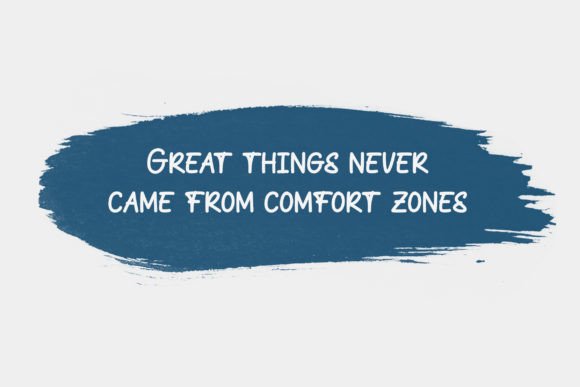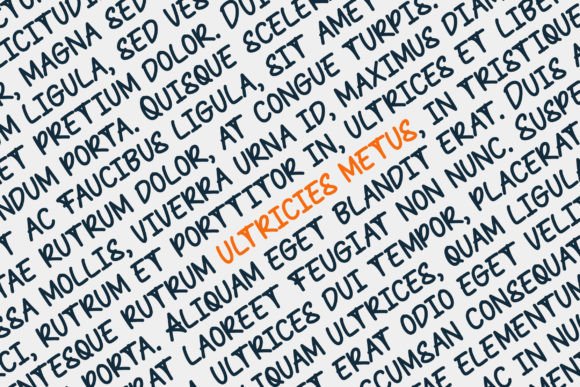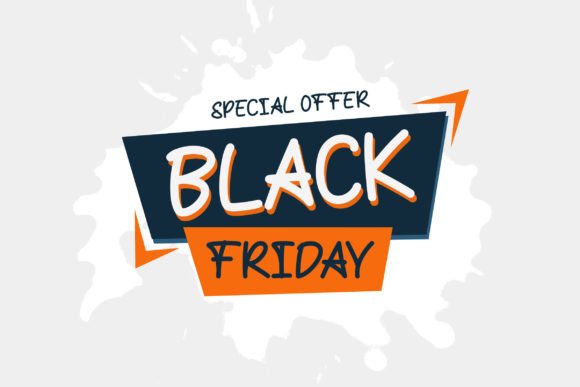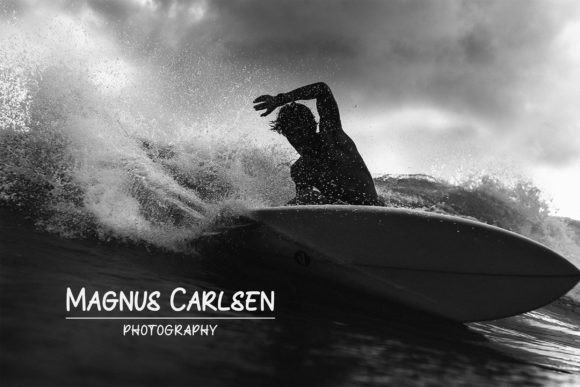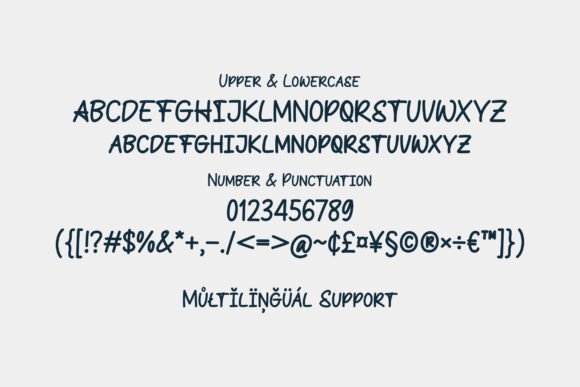
Crozone Font: The Ultimate Relaxed Handwritten Font for Designers and Crafters
Are you tired of using the same old fonts for your designs? Look no further than Crozone Font, a beautiful and relaxed handwritten font that’s perfect for adding a personal touch to your branding, quotes, stationery, and more. In this article, we’ll dive into the world of Crozone Font and explore its features, uses, and benefits for designers and crafters.
What is Crozone Font?
Crozone Font is a unique and stylish handwritten font that’s designed to bring a sense of relaxation and casualness to your designs. With its smooth and flowing lines, Crozone Font is perfect for creating a laid-back and friendly vibe that’s sure to resonate with your audience. Whether you’re designing a logo, creating a social media post, or crafting a magazine layout, Crozone Font is the perfect choice.
Features of Crozone Font
Crozone Font comes with a range of features that make it a versatile and practical choice for designers and crafters. Some of its key features include:
- Relaxed and casual style: Crozone Font has a unique and laid-back style that’s perfect for creating a friendly and approachable vibe.
- Handwritten look: With its smooth and flowing lines, Crozone Font has a beautiful handwritten look that’s sure to add a personal touch to your designs.
- Multipurpose: Crozone Font is perfect for a wide range of design applications, including branding, quotes, stationery, social media, packaging, and more.
- Easy to read: Despite its casual style, Crozone Font is easy to read and understand, making it perfect for body text and headlines.
Uses of Crozone Font
Crozone Font is a versatile font that can be used for a wide range of design applications. Here are some of the ways you can use Crozone Font:
- Branding: Use Crozone Font to create a unique and memorable logo that reflects your brand’s personality and style.
- Quotes: Add a personal touch to your quotes and sayings with Crozone Font’s beautiful handwritten style.
- Stationery design: Use Crozone Font to create stylish and personalized stationery, including greeting cards, invitations, and more.
- Social media: Add a touch of personality to your social media posts with Crozone Font’s relaxed and casual style.
- Packaging: Use Crozone Font to create eye-catching and memorable packaging that stands out on store shelves.
- Watermark: Add a professional touch to your photos and designs with Crozone Font’s elegant and understated style.
- Magazine layout: Use Crozone Font to create a unique and stylish magazine layout that’s sure to engage your readers.
- Prints: Add a personal touch to your prints, including posters, flyers, and brochures, with Crozone Font’s beautiful handwritten style.
Benefits of Using Crozone Font
There are many benefits to using Crozone Font for your design projects. Here are some of the advantages of using this beautiful font:
- Unique style: Crozone Font has a unique and stylish look that’s sure to set your designs apart from the crowd.
- Flexibility: Crozone Font is a versatile font that can be used for a wide range of design applications.
- Ease of use: Crozone Font is easy to read and understand, making it perfect for body text and headlines.
- Time-saving: With Crozone Font, you can create professional-looking designs in no time, saving you time and effort.
In conclusion, Crozone Font is a beautiful and versatile handwritten font that’s perfect for designers and crafters. With its relaxed and casual style, Crozone Font is sure to add a personal touch to your designs and help you stand out from the crowd. Whether you’re creating a logo, designing a social media post, or crafting a magazine layout, Crozone Font is the perfect choice. So why wait? Download Crozone Font today and start creating stunning designs that showcase your unique style and personality.